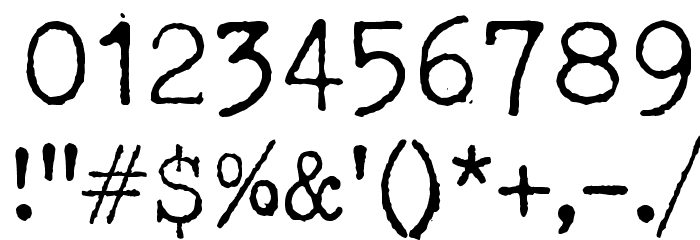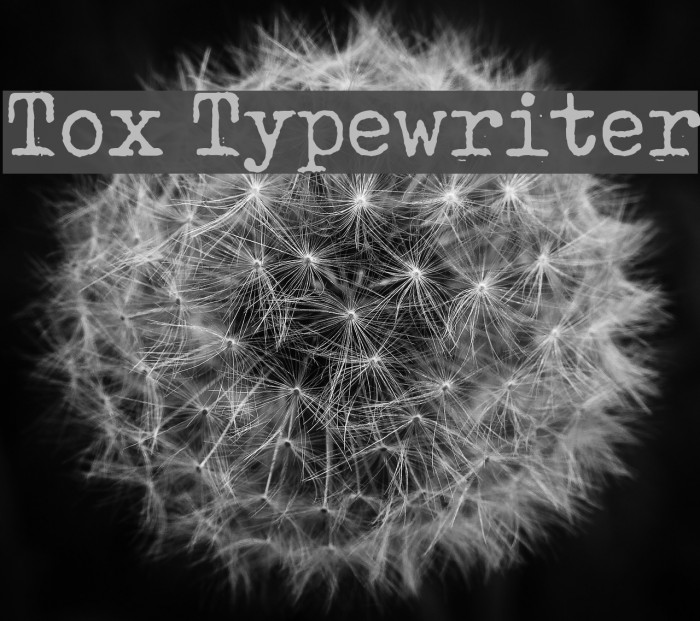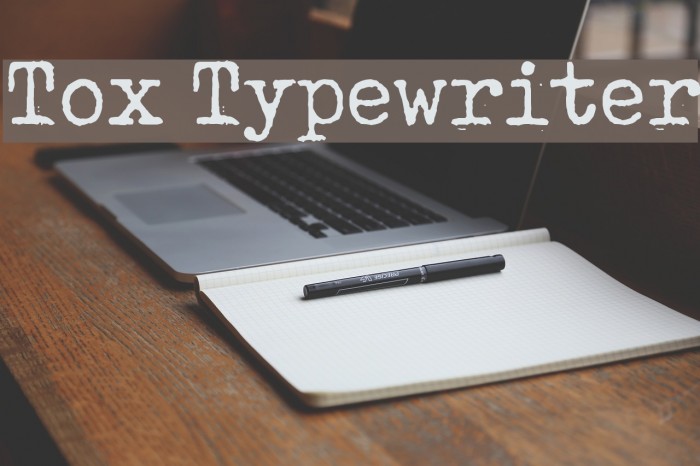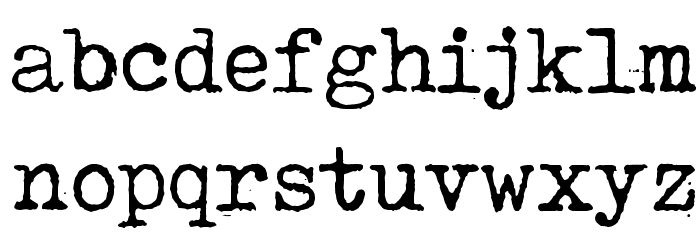
Tox Typewriter Font
Tox Typewriter Description
This typeface exudes a vintage typewriter aesthetic, characterized by its monospaced letters and slightly irregular, distressed appearance. The characters have a rough, textured look, reminiscent of ink impressions from an old mechanical typewriter. The uppercase and lowercase letters maintain a consistent height, while the numerals and special characters follow the same monospaced format, ensuring uniformity across the board. The font's unique charm lies in its imperfections, with each letter exhibiting subtle variations that add to its authenticity. This style is ideal for projects that aim to evoke a sense of nostalgia or historical context.
| Overall Style | Vintage |
| Use Case | Headlines, Logos, Creative writing |
| Proposed Projects | Ideal for retro-themed designs, vintage posters, typewriter art, historical documents, and creative writing projects. |